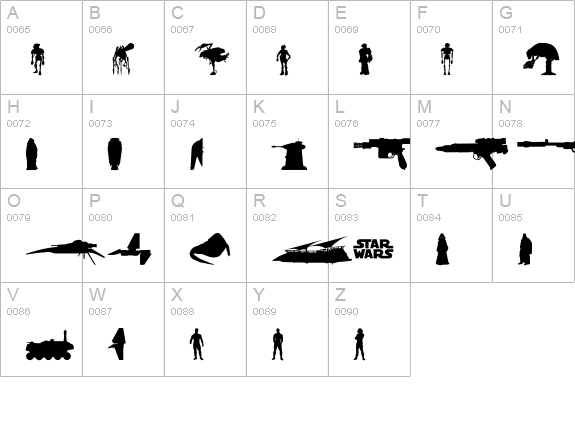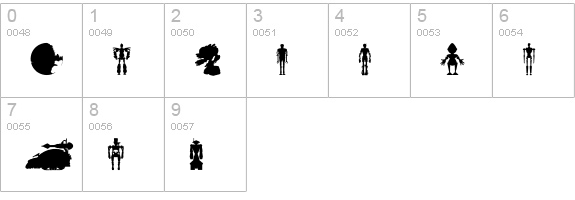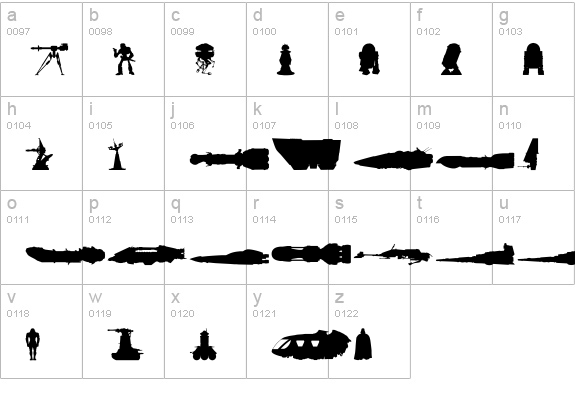
StarWars Kit Font Details
Introducing the magnificent StarWars Kit font! This extraordinary typeface captures the essence of the beloved Star Wars franchise, transporting you to a galaxy far, far away with its iconic design. Embellished with intricate details and inspired by the famous title logo, StarWars Kit font is a must-have for any Star Wars enthusiast, graphic designer, or typographer. With its bold and powerful presence, StarWars Kit font embodies the spirit of adventure, excitement, and epic battles fought in the vastness of space. Whether you're creating a movie poster, designing a Star Wars-themed event, or simply adding a touch of intergalactic charm to your project, this font will undoubtedly make an unforgettable impression. What makes StarWars Kit font even more captivating is that it is free! Yes, you read that right - this incredible typeface is freely available to download at FontsMarket.com. Now you can bring the Star Wars universe into your creative endeavors without spending a single credit. Designed with precision and attention to detail, StarWars Kit font is not only visually stunning but also highly versatile. Its wide range of glyphs and alternate characters allows you to customize your text, adding a touch of uniqueness to your designs. Whether you're aiming for a sleek and modern look or a rugged and weathered feel, this font has got you covered. So, join the ranks of Jedi and Sith, rebels and stormtroopers, and unleash your creativity with the StarWars Kit font. Download it today from FontsMarket.com and embark on an epic typographic journey through the Star Wars universe. May the Force be with you!